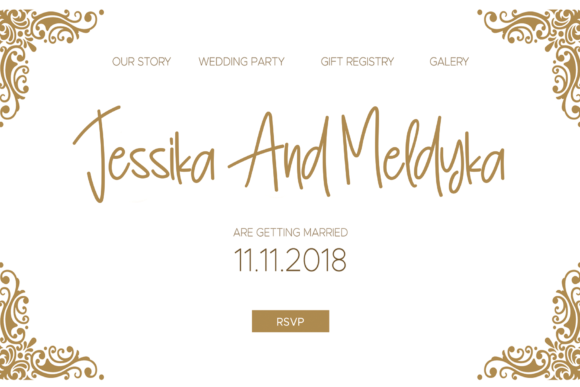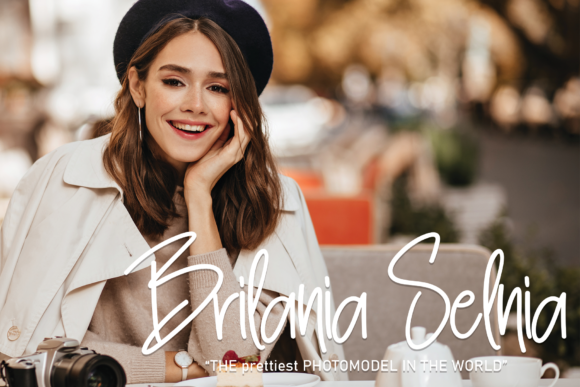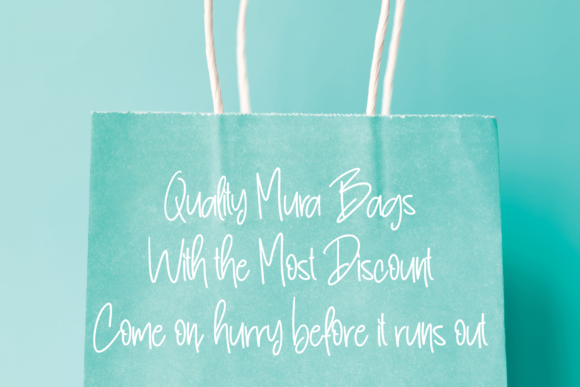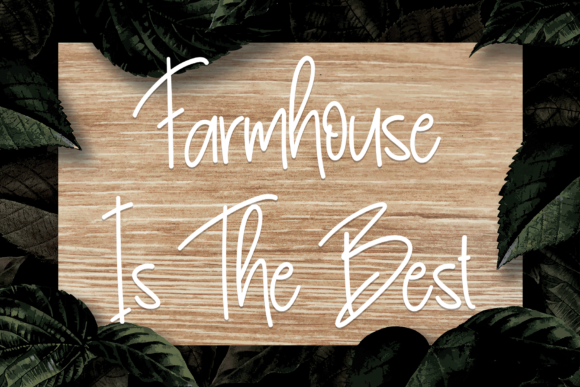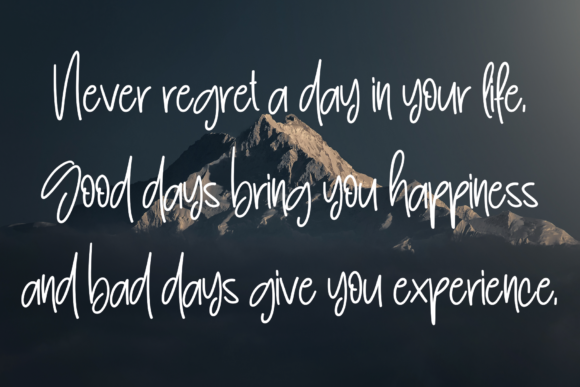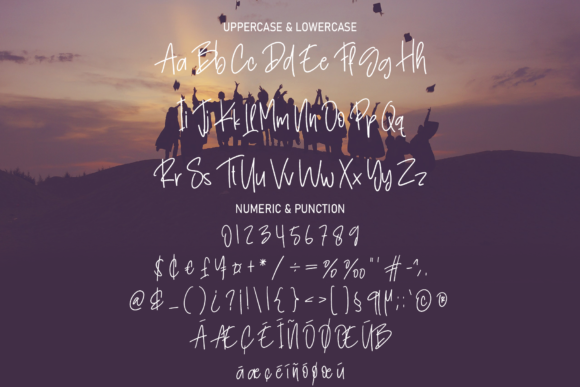
The Ultimate Guide to Graduation Font: Elevate Your Designs with Elegance and Sophistication
Are you a designer or crafter looking for the perfect font to add a touch of elegance and sophistication to your projects? Look no further than the Graduation Font. This beautiful font is perfect for a wide range of applications, from wall displays and wedding invitations to social media post logos and product packaging. In this article, we’ll explore the world of Graduation Font and show you how to make the most of its unique and stylish letters.
What is Graduation Font?
Graduation Font is a stunning handwritten font that is perfect for adding a personal touch to your designs. Its elegant and sophisticated letters are carefully crafted to make your projects stand out from the crowd. Whether you’re a designer, crafter, or DIY enthusiast, this font is sure to become a favorite in your collection.
Uses for Graduation Font
This font’s letters are perfect for a wide range of applications, including:
- Wall displays: Create stunning wall art with Graduation Font that’s sure to impress.
- Wedding invitations: Add a touch of elegance and sophistication to your wedding invitations with this beautiful font.
- Social media post logos: Elevate your social media presence with custom logos created using Graduation Font.
- Advertisements: Make your ads stand out with this eye-catching font that’s sure to grab attention.
- Product packaging: Add a personal touch to your product packaging with Graduation Font.
- Product designs: Create stunning product designs that showcase your brand’s personality.
- Labels: Create custom labels that are both functional and visually appealing.
- Photography: Add a watermark to your photos with Graduation Font for a professional touch.
- Invitations: Create custom invitations for any occasion, from birthdays to graduations.
- Stationery: Elevate your stationery with Graduation Font and make your correspondence stand out.
Why Choose Graduation Font?
So why choose Graduation Font over other fonts? Here are just a few reasons:
- Elegant and sophisticated: Graduation Font is the perfect choice for designers and crafters who want to add a touch of elegance and sophistication to their projects.
- Handwritten taste: This font’s handwritten taste is perfect for creating unique and personalized designs.
- Versatile: Graduation Font can be used for a wide range of applications, from digital designs to print projects.
Tips for Using Graduation Font
Here are a few tips for getting the most out of Graduation Font:
- Experiment with different sizes: Graduation Font looks great in a variety of sizes, so don’t be afraid to experiment to find the perfect size for your project.
- Pair with other fonts: Graduation Font pairs well with a variety of other fonts, so try pairing it with a sans-serif font for a modern look.
- Use it sparingly: While Graduation Font is beautiful, it can be overwhelming if used too much. Use it sparingly to add a touch of elegance to your designs.